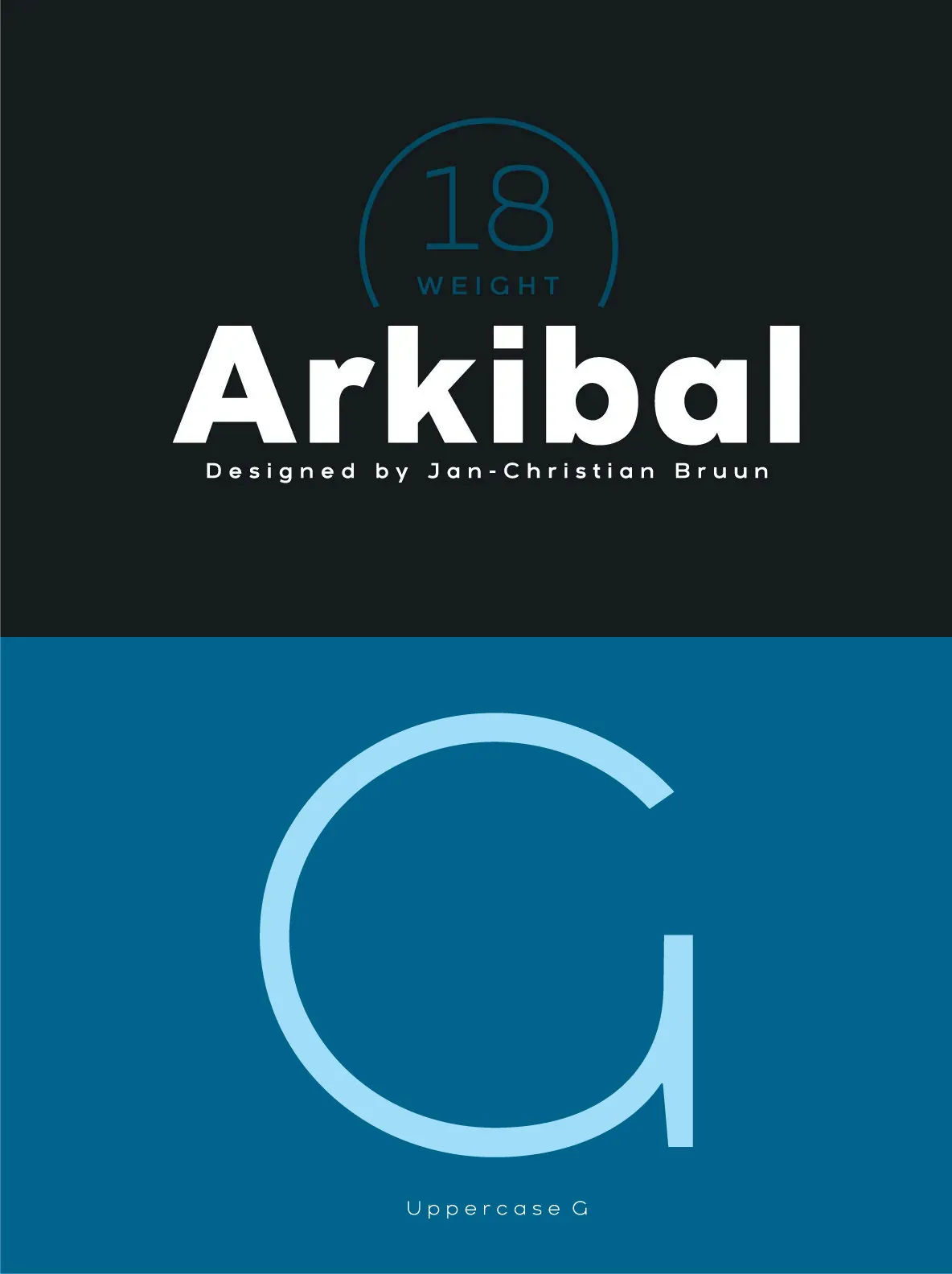
The inspiration comes from some old documents and store signs from my great-grandfather’s old gold list factory from 1838. He delivered hits for many artists of that time, and various museums in Copenhagen. I priority increases to make a mixture of the classic letter with a modern lift. And this contain also a serif og display version.
Seems it was interesting to try to reproduce some of the old characters and make a
new font. Uppercase “G” was the first letter of the starting point. G stands for in danish “Guldramme”, which means “Gold frame.” Arkibal is coming from an almost old danish traditional name “Arkibald”, only without “d”.